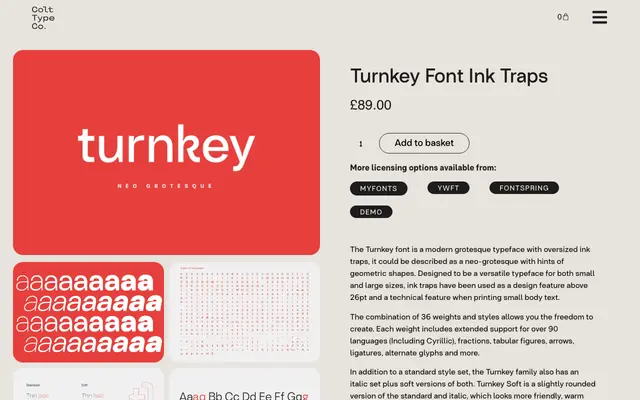
Turnkey Font Ink Traps
A neo-grotesque with oversized ink traps used as a deliberate design feature, available in two subfamilies covering standard and softly rounded styles across nine weights each.
The ink traps function both as ornamentation at display sizes and as a practical aid for small-text printing, giving the family a dual-purpose logic. Turnkey Soft introduces slight rounding to the standard and italic cuts, shifting the tone from corporate to warmer and more approachable. At 36 styles in total, with Cyrillic support and extended Latin covering 95 languages, it is built for broad deployment across editorial, identity and digital applications.
Described by the foundry as a modern grotesque with oversized ink traps and hints of geometric shapes, placing it squarely in the neo-grotesque tradition with a distinctive design detail.